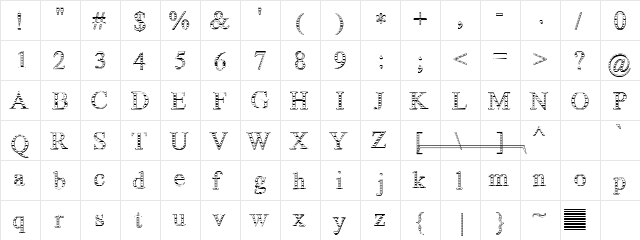
Chromium_ Regular
Design Context for Chromium_ Typeface
Chromium_ is a composed and adaptable typeface that performs quietly and consistently across a wide range of design contexts.